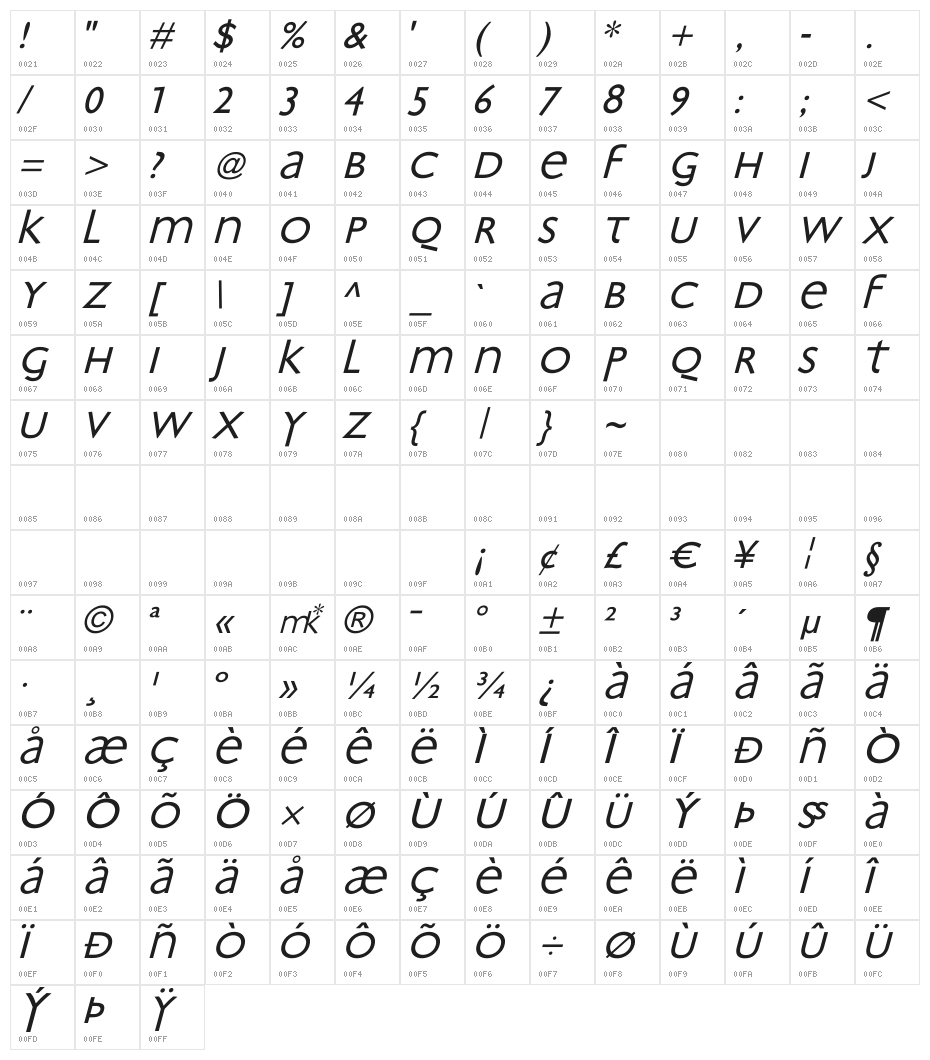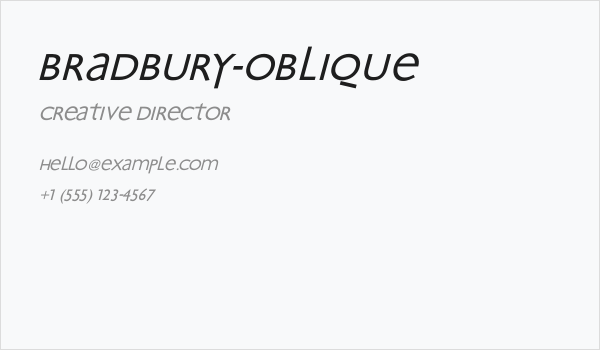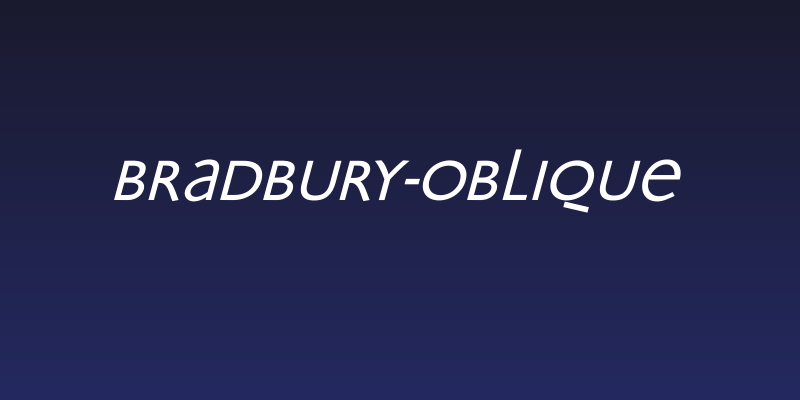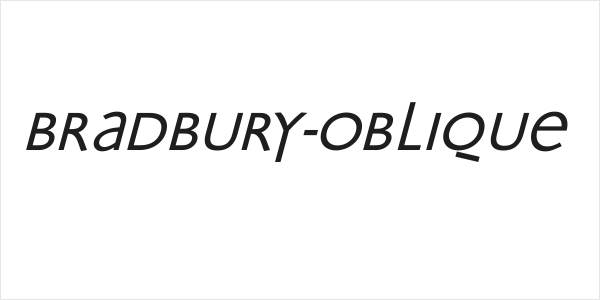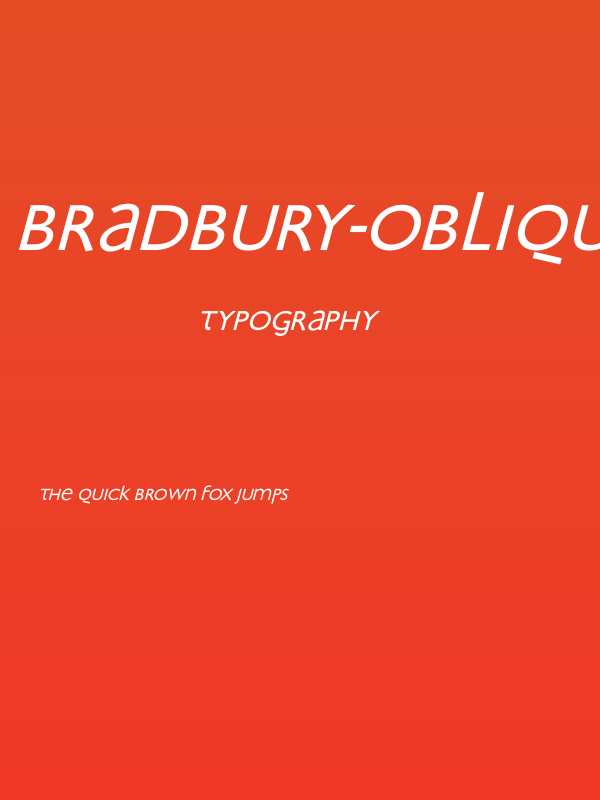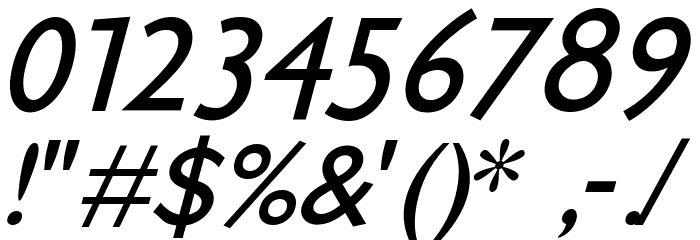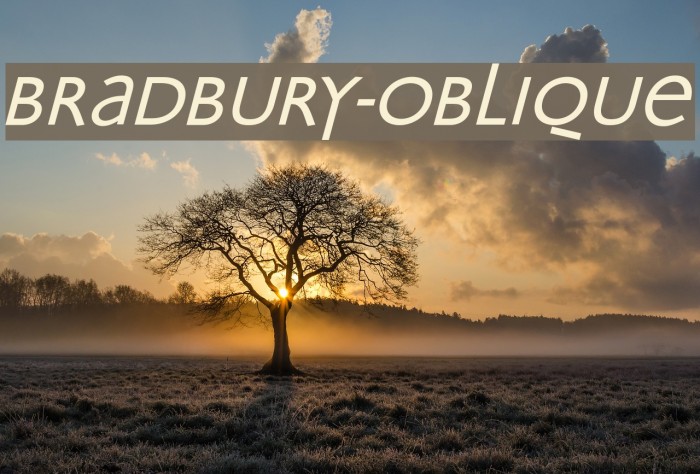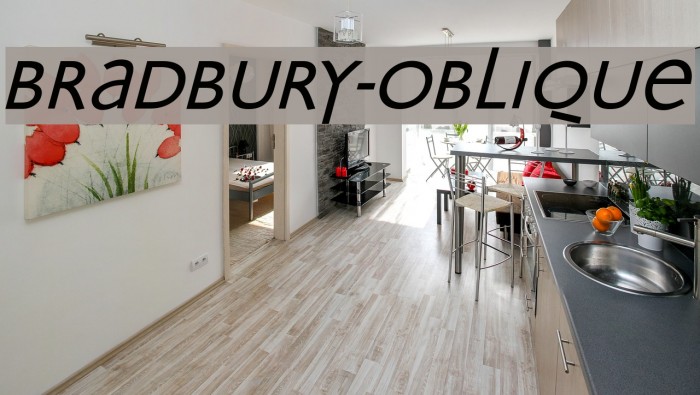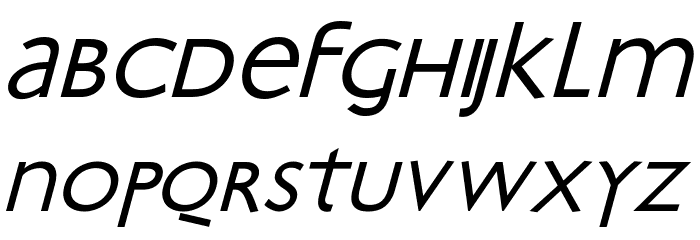
Bradbury-Oblique Font
Bradbury-Oblique Description
This font features a sleek, modern design with an oblique slant that adds a dynamic and forward-moving feel. The characters are clean and streamlined, with a consistent stroke width that gives it a uniform appearance. The uppercase and lowercase letters maintain a harmonious balance, while the numerals are clear and easily distinguishable. Special characters are well-integrated, enhancing the font's versatility. Its overall aesthetic is contemporary, making it suitable for a variety of digital and print applications.
| Use Case | Headlines, Logos, Digital media |
| Proposed Projects | Ideal for branding, advertising, and digital media projects where a modern and dynamic look is desired. |